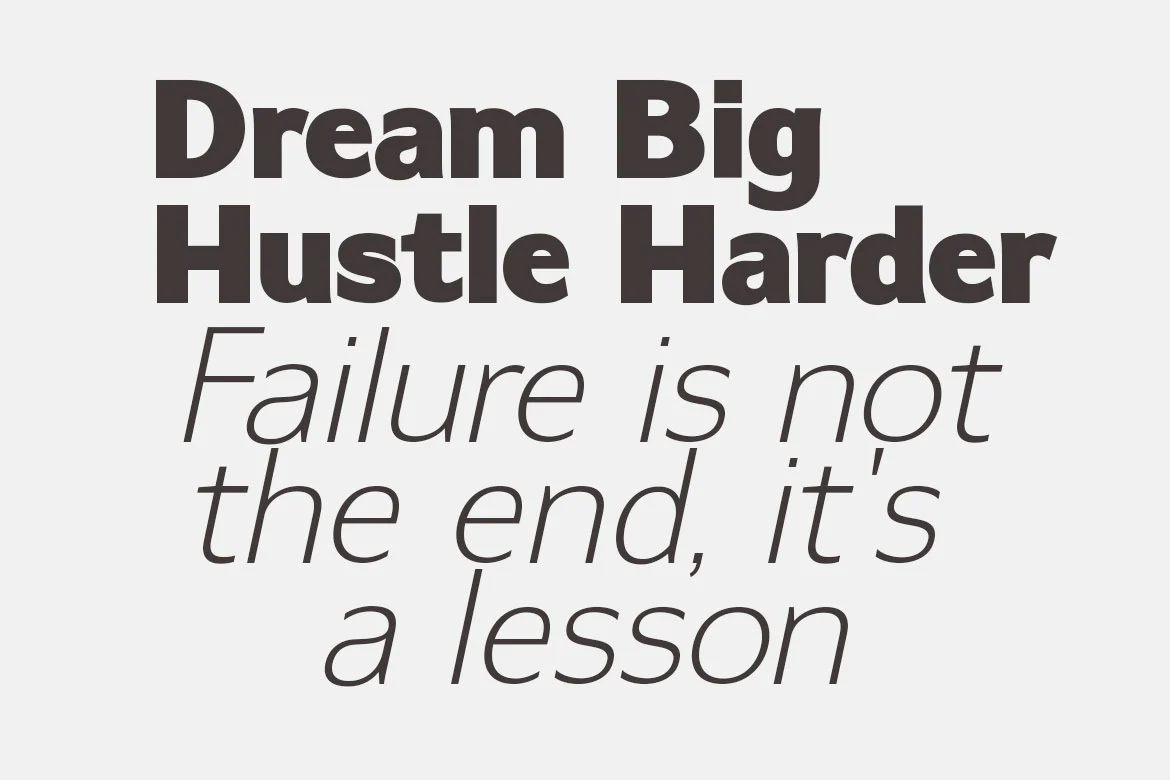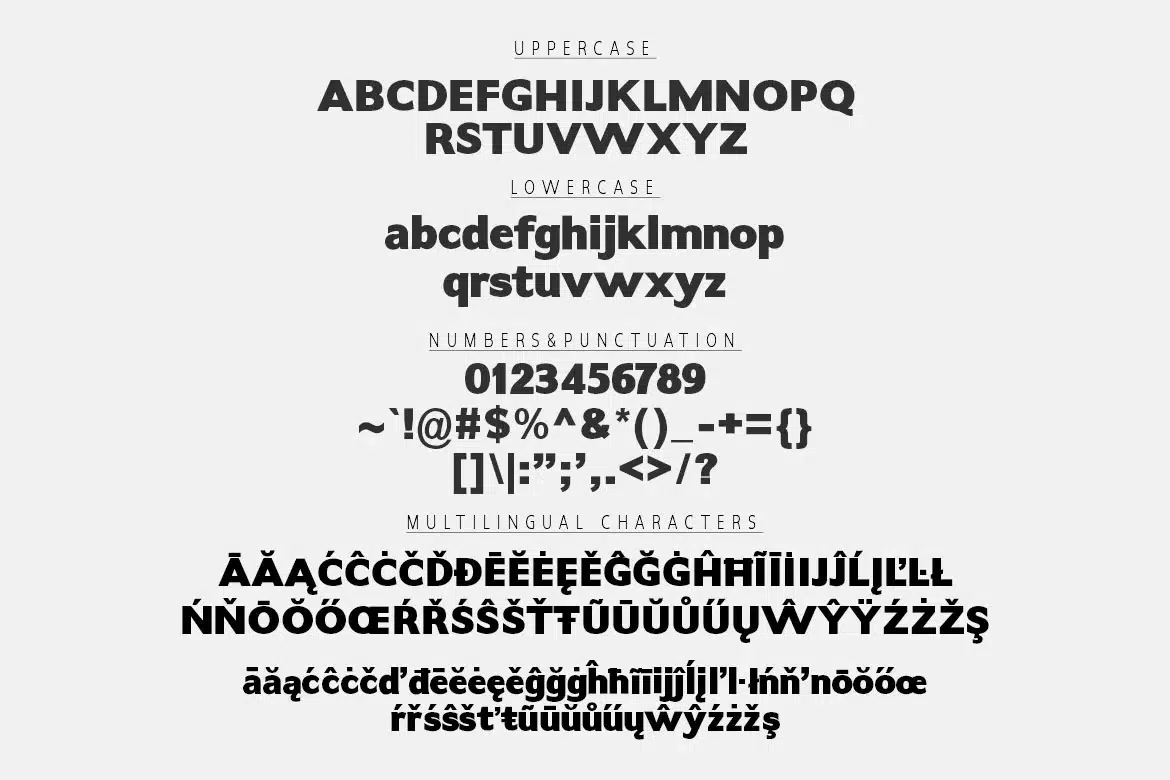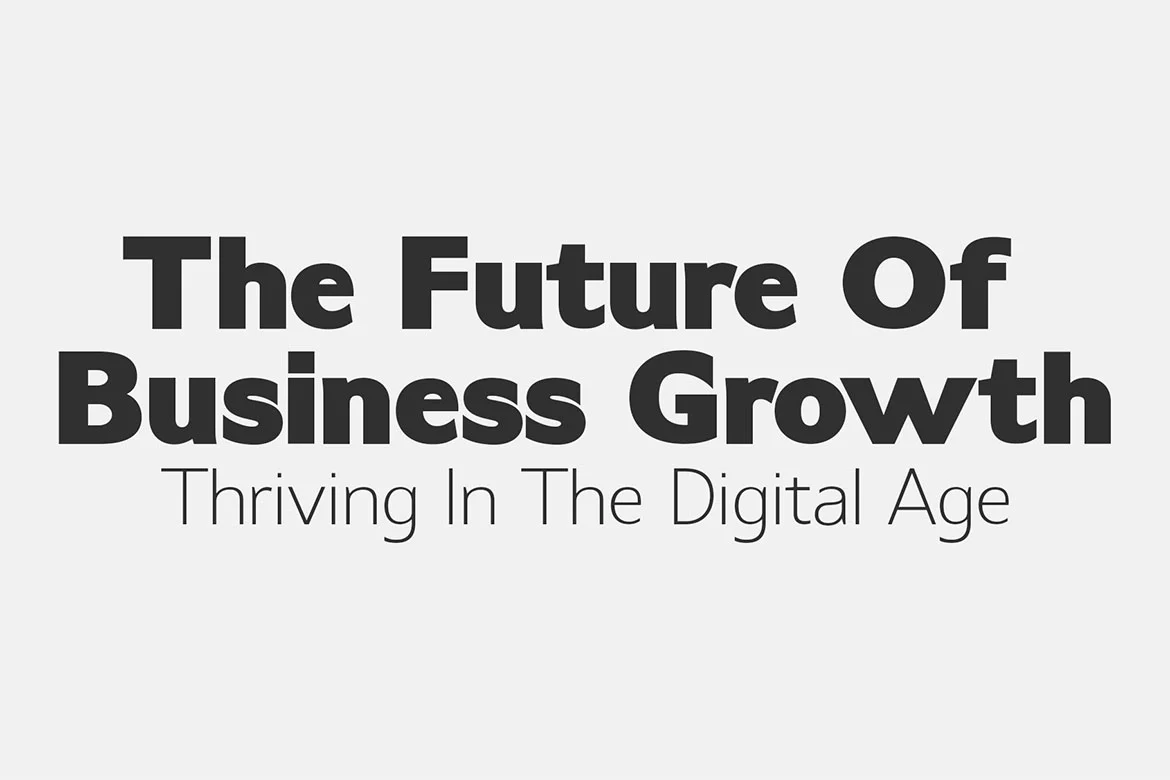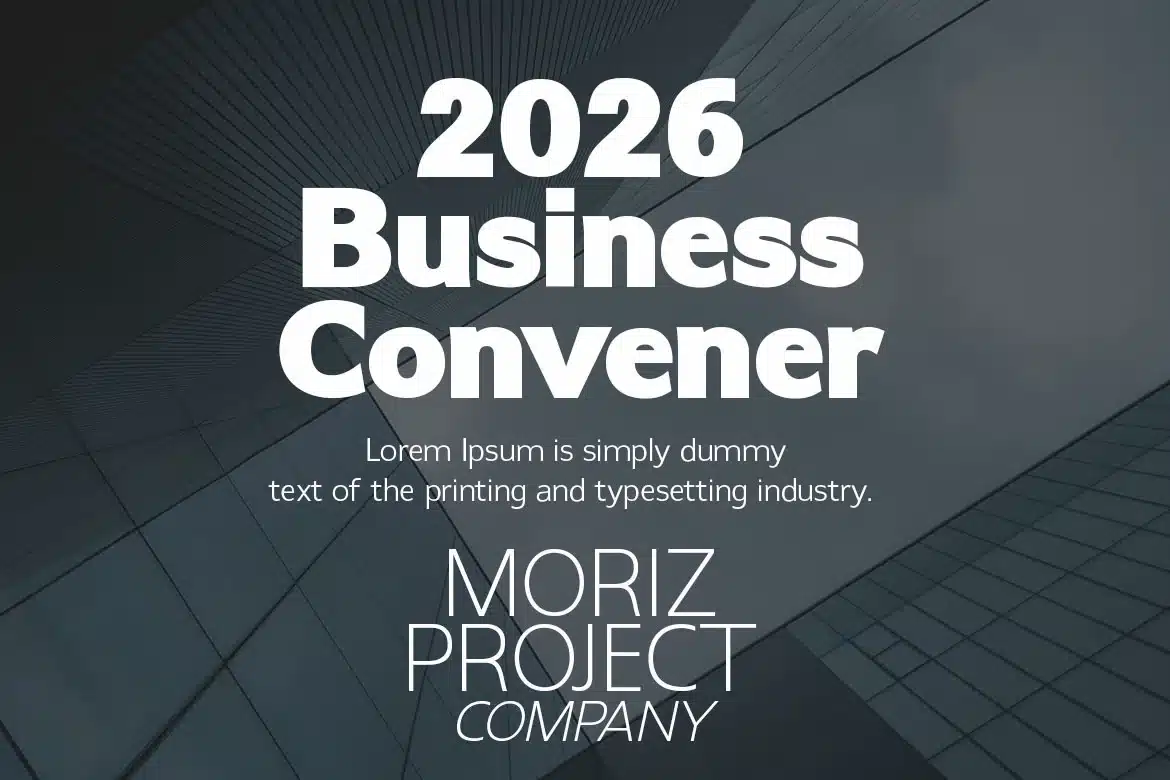
Defe Ranst Font
Modern Sans Serif Family – 4 Styles Included (Thin & Black + Italics)
Dafe Ranst is a modern sans serif font designed with a clean, minimalist, and professional look. With a combination of Thin and Black weights, as well as an Italic version, this font offers great flexibility for a variety of design needs—from light, elegant looks to bold, bold styles.
Dafe Ranst is suitable for designers seeking a simple yet distinctive style, striking a balance between modern aesthetics and good readability.